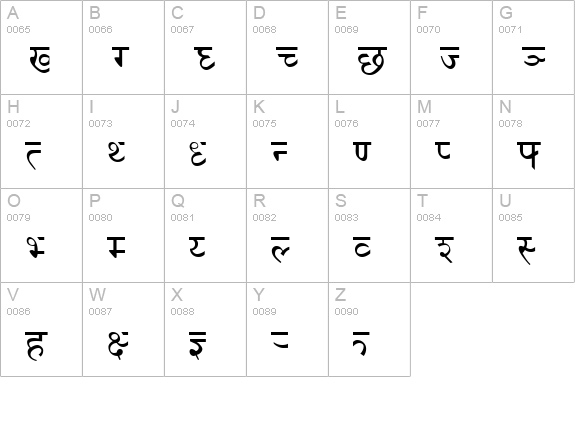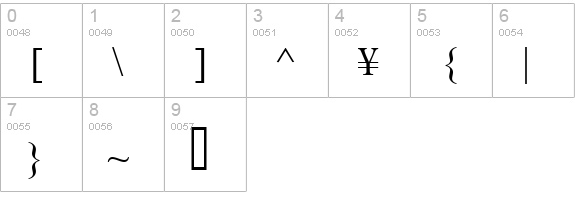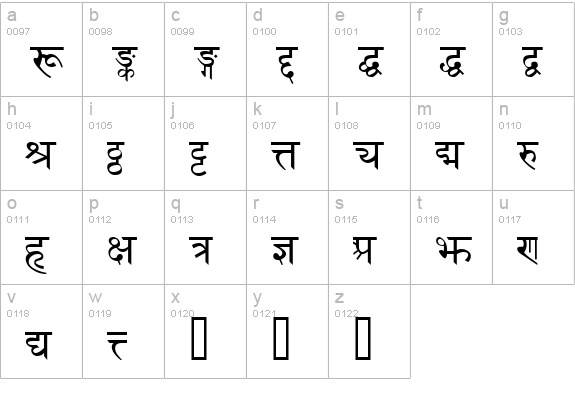
DevanagariDelhiSSK Font Details
DevanagariDelhiSSK font is a beautiful and elegant typeface that is perfect for creating stunning designs in Hindi and other Indian languages. With its unique style and intricate details, this font is sure to make your projects stand out. The flowing curves and sharp edges of DevanagariDelhiSSK will add a touch of sophistication to any design, whether it's for print or digital use. The best part about DevanagariDelhiSSK font is that it is completely free to download! You can easily access this font at FontsMarket.com and start using it in your projects right away. Whether you're designing a poster, flyer, website, or any other creative project, DevanagariDelhiSSK font is a versatile typeface that will elevate your design to the next level. Download it now and unleash your creativity with this stunning font.